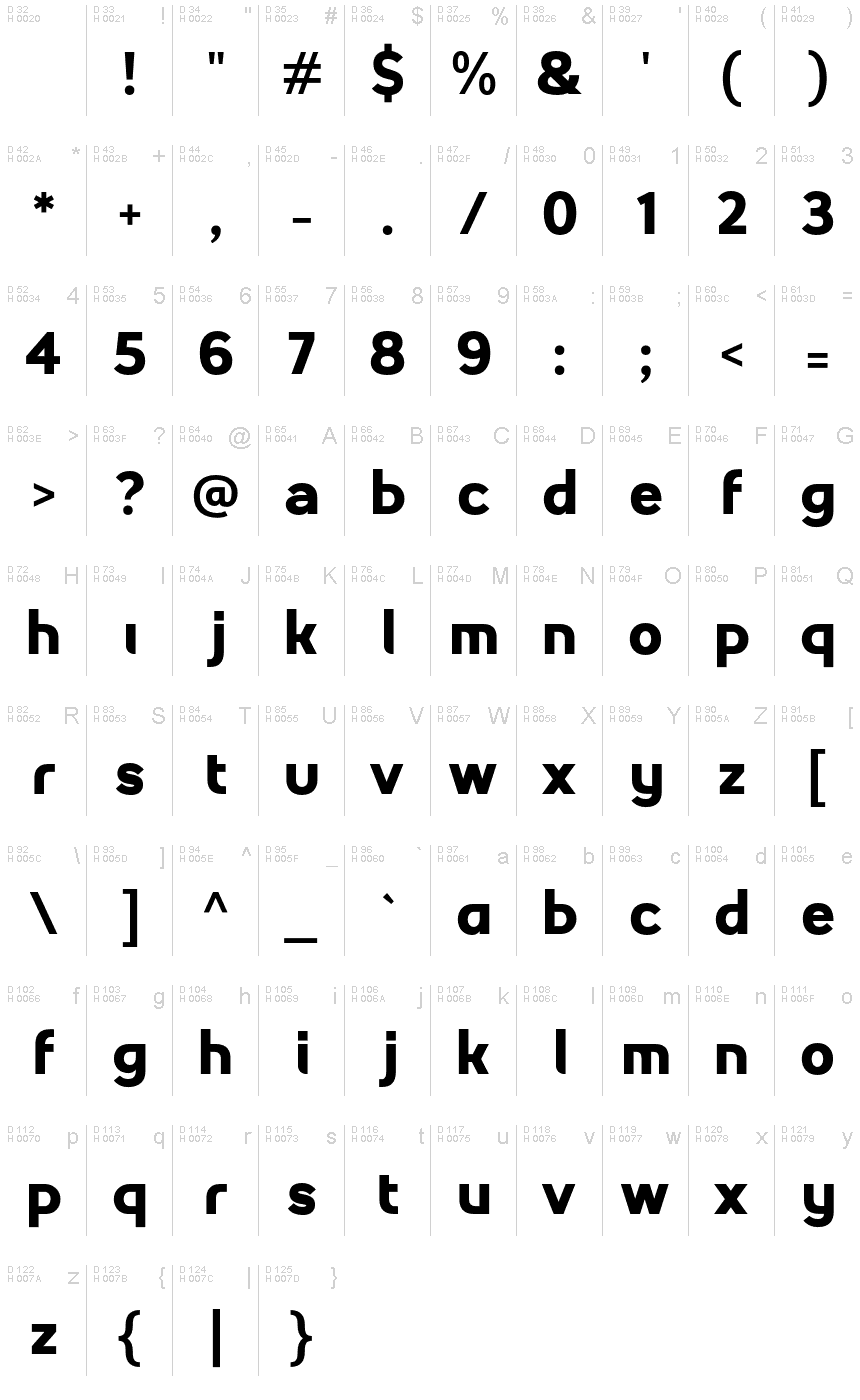
Install-Regular
Install, a modern sans serif font designed by Faqih Fawaji, combines sleek lines with a bold weight to create a visually striking typeface. With its clean and minimalist design, Install is perfect for a wide range of projects. Its versatility makes it suitable for corporate branding, logo design, website headers, and print materials such as brochures and posters. Whether you're looking to make a bold statement or add a touch of modernity to your designs, Install font is the perfect choice for those seeking a stylish and contemporary aesthetic.